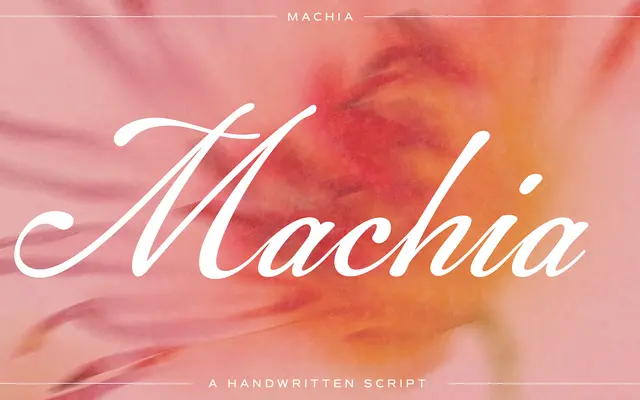
Machia specimen from Dharma Type
A handwritten script with full, inky strokes, recognised by MyFonts as a Rising Star in September 2006.
Machia draws on the qualities of pen-and-ink handwriting, with strokes that carry visible weight and fluid movement across letterforms. It was noted for its expressive, natural character when it received MyFonts' Rising Stars recognition. Well suited to packaging, editorial headers and any application where a personal, hand-drawn quality is required.
Machia is a handwritten script with inky, expressive strokes, placing it firmly in the script category as a casual or brush-influenced handwritten style.